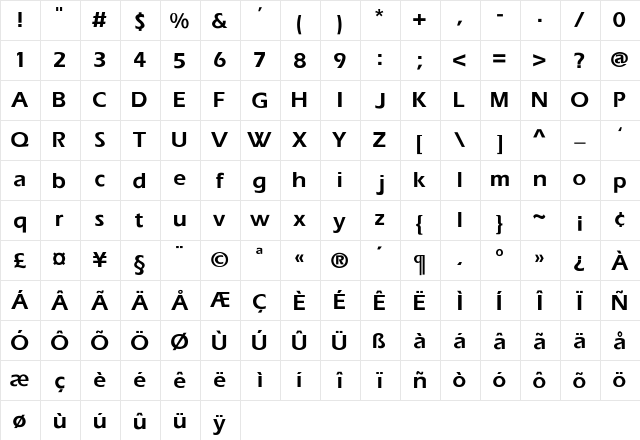
Semolina-SemiBold Regular Font Preview
Semolina-SemiBold Regular
Semolina-SemiBold Regular Font Details
Design Context for Semolina-SemiBold Typeface
Semolina-SemiBold offers clean, dependable letterforms without strong stylistic allegiance, making it a practical choice for designers who need flexibility. Its bold stroke weight gives it real presence on the page.